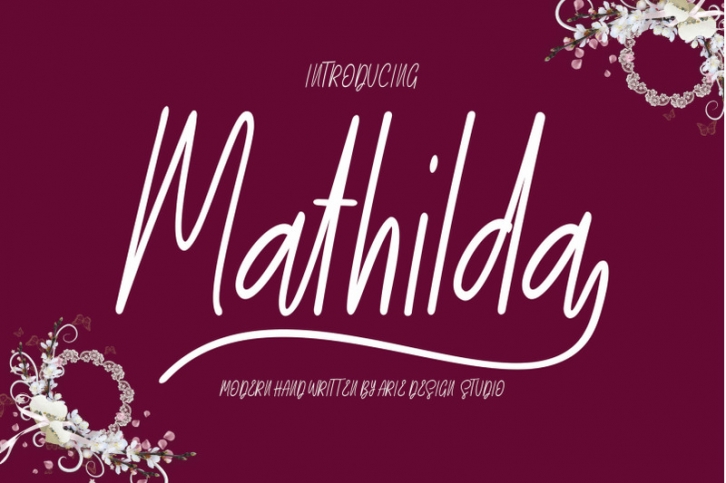
Mathilda Script:
is a variant of new modern from handmade text types. present for you to complete your script font collection.
If you want to add an elegant touch to your project right now, don't miss this one, Mathilda Script. You will get an amazing collection of modern script fonts, each featuring many OpenType features and several languages.
Mathilda Script: A very beautiful script with a beautiful base, and equipped with perfect lines to be used for various purposes. such as titles, signatures, logos, correspondence, wedding invitations, letterhead, name boards, labels, bulletins, posters, badges, Branding, Greeting Cards, etc. It comes with Open Type sets, Stylistic Alternatives, style sets, ligatures and swashes and all to add an authentic touch to your design.